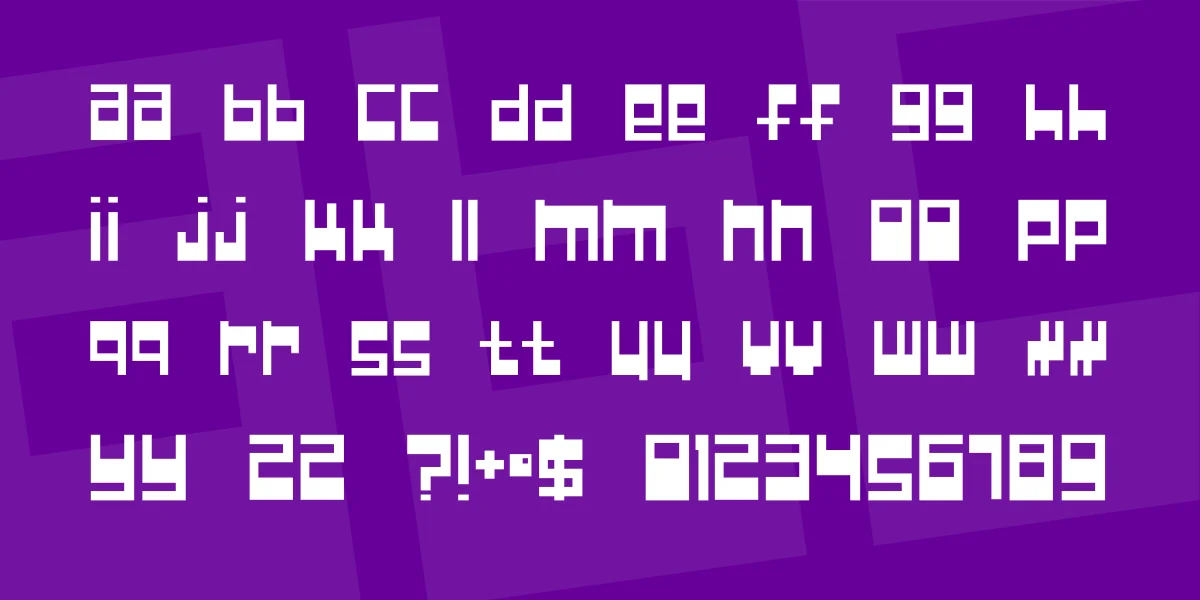
(Caps/Lower [same], numbers, most punctuation, some special) I guess is named this because people keep thinking I'm a physics major with all my physics-named fonts. I'm in Computer Science! This font is heavy and computerish, with no diagonal lines at all. Most of the keyboard characters are there. (29 January 1998)